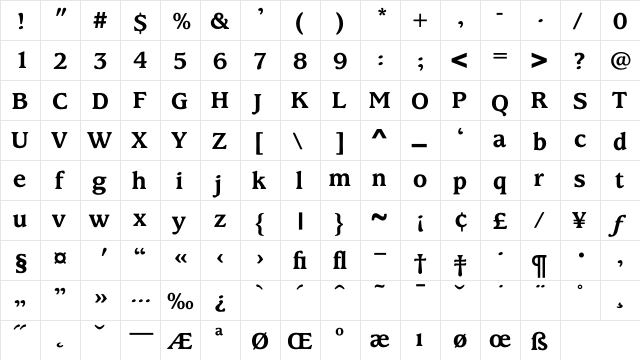
KingsrowBold Regular
Design Context for KingsrowBold Typeface
KingsrowBold takes a measured approach to typography — its balanced proportions and neutral character make it a reliable workhorse for both digital and print work. Its bold stroke weight gives it real presence on the page.
Pro Tip: Pair KingsrowBold with a font of contrasting weight or personality to build a more expressive typographic hierarchy.